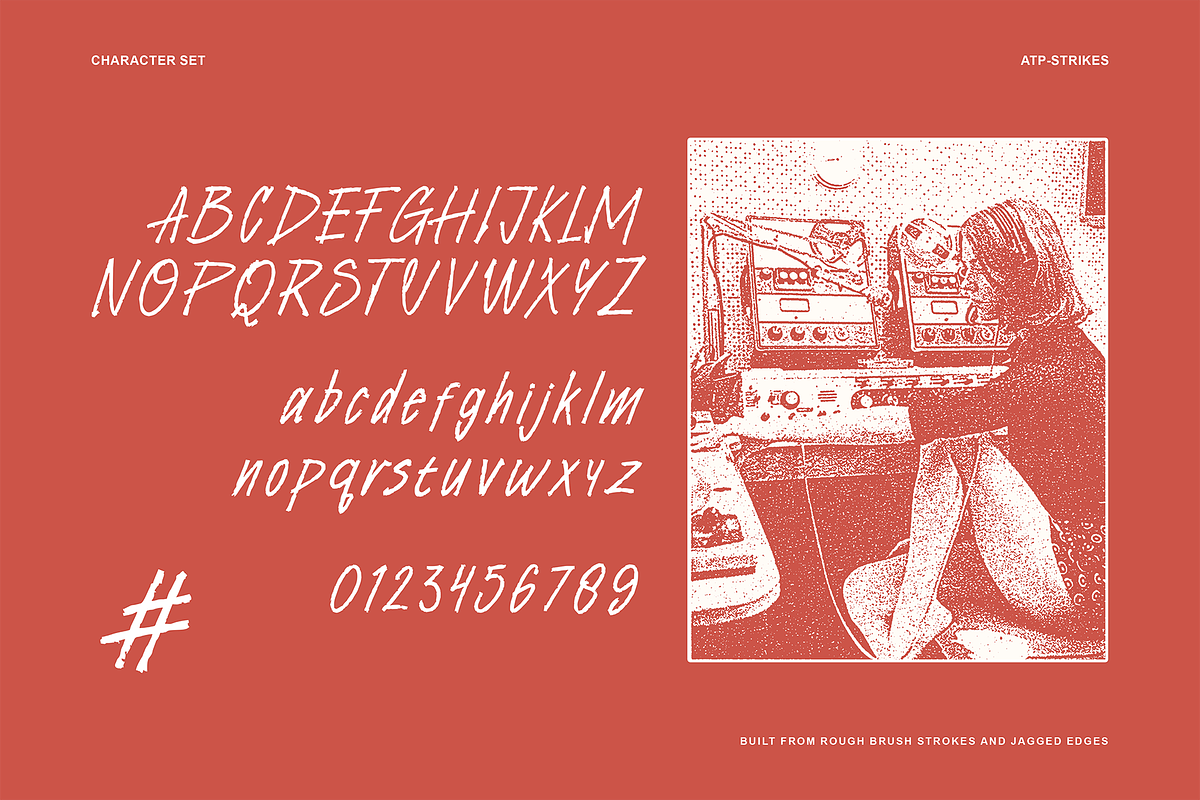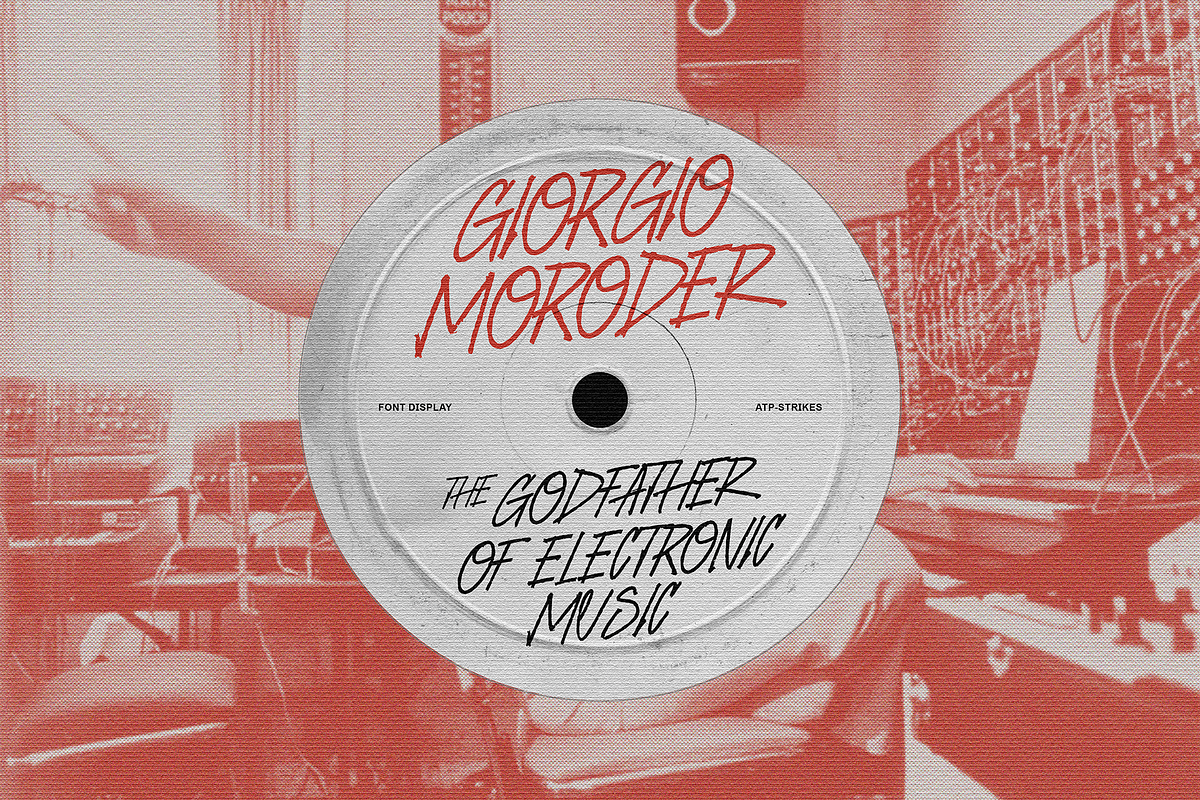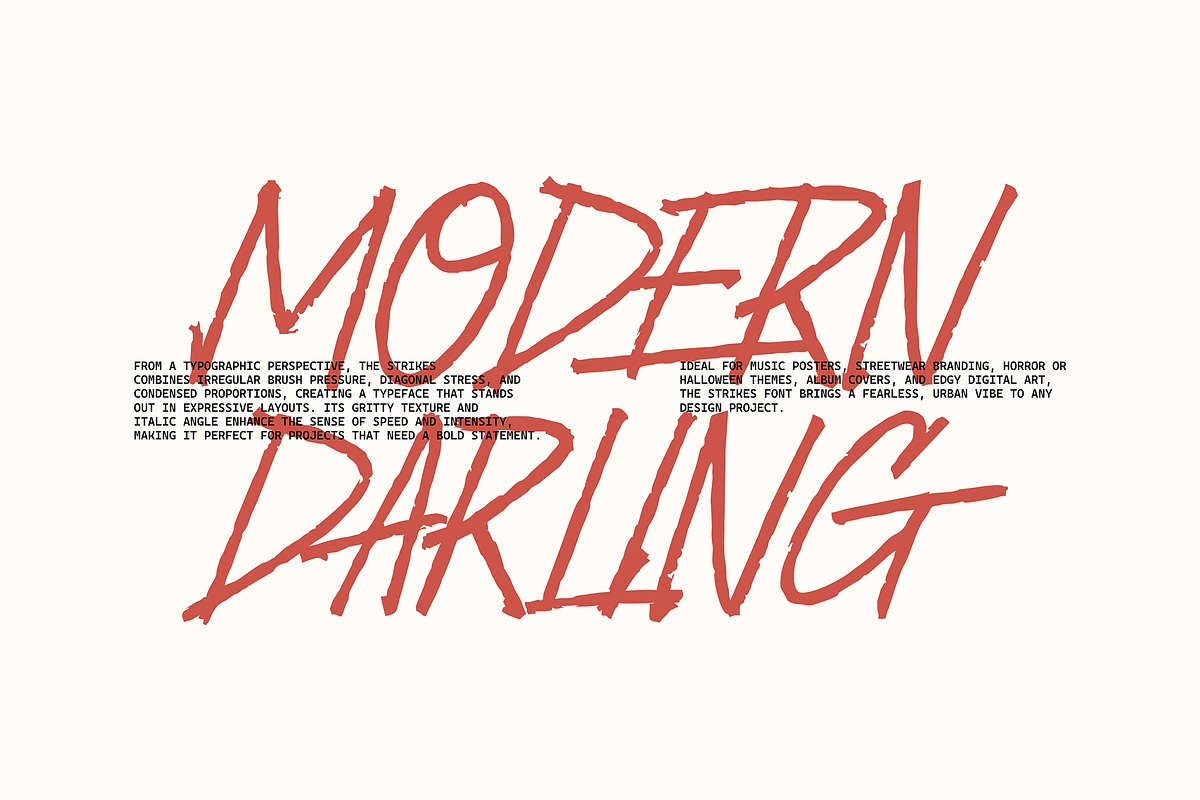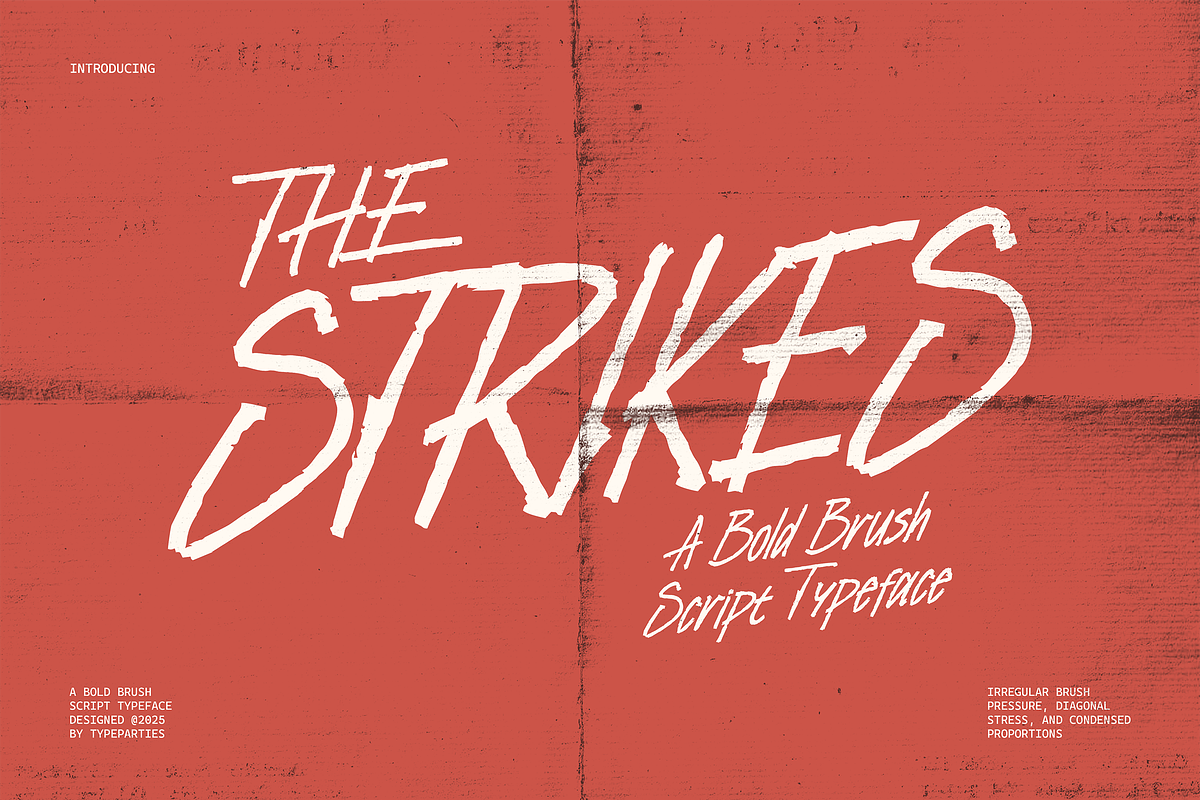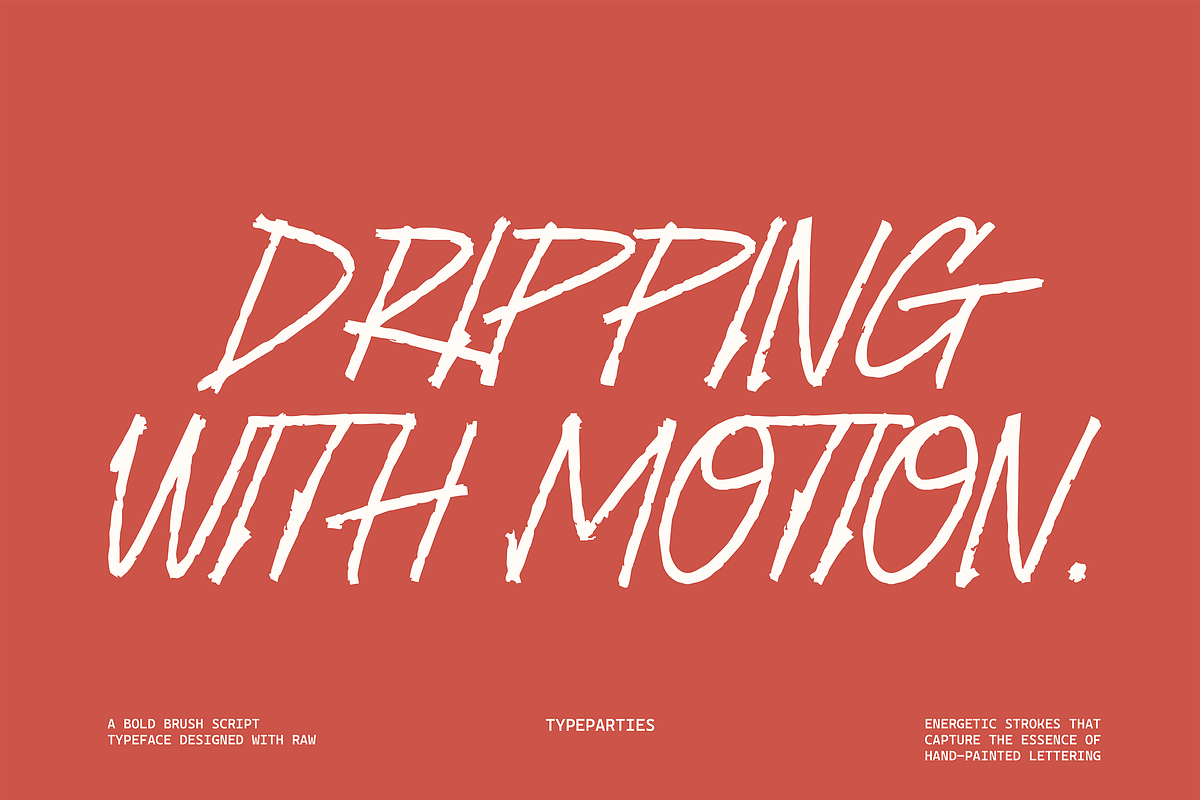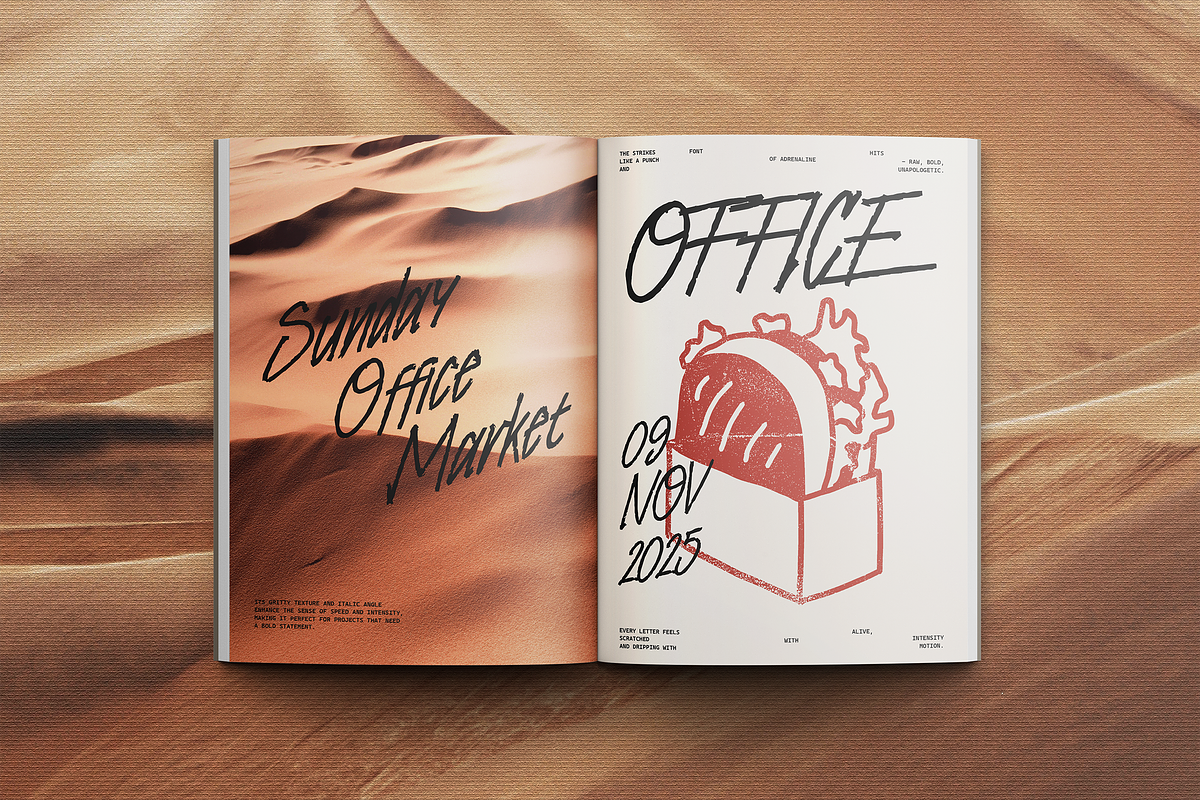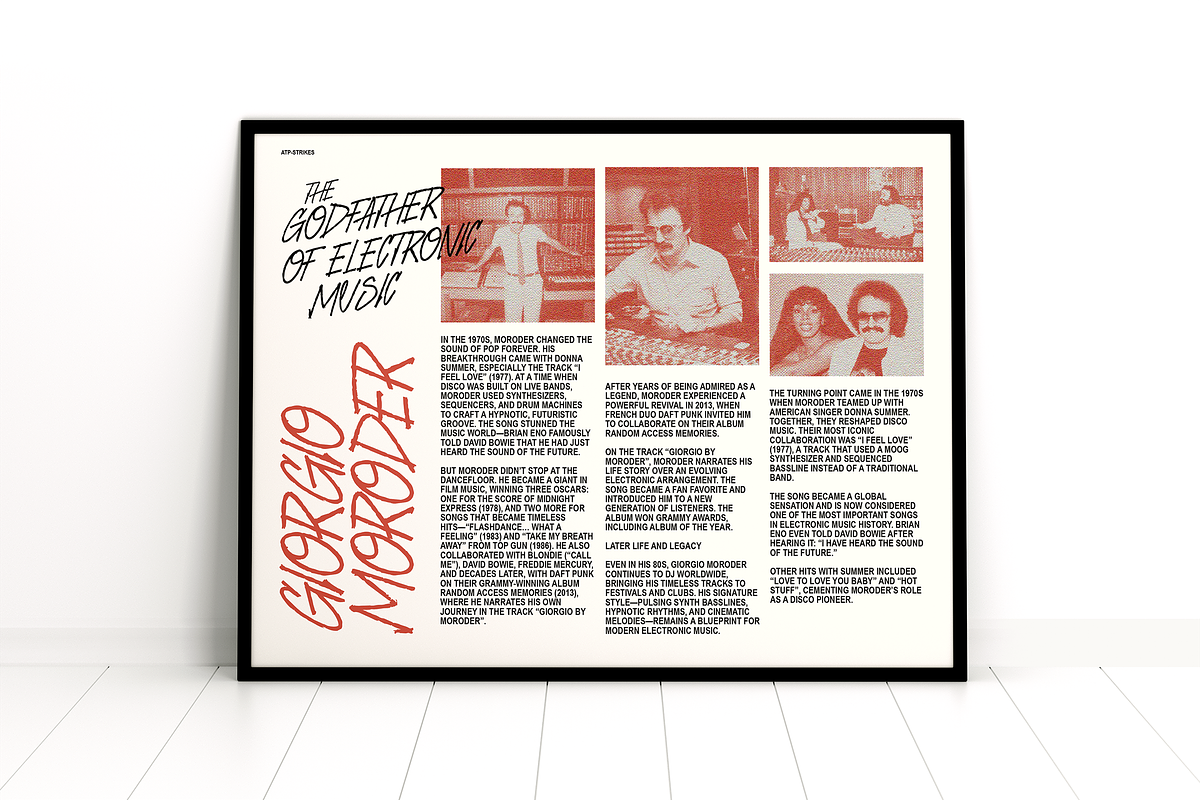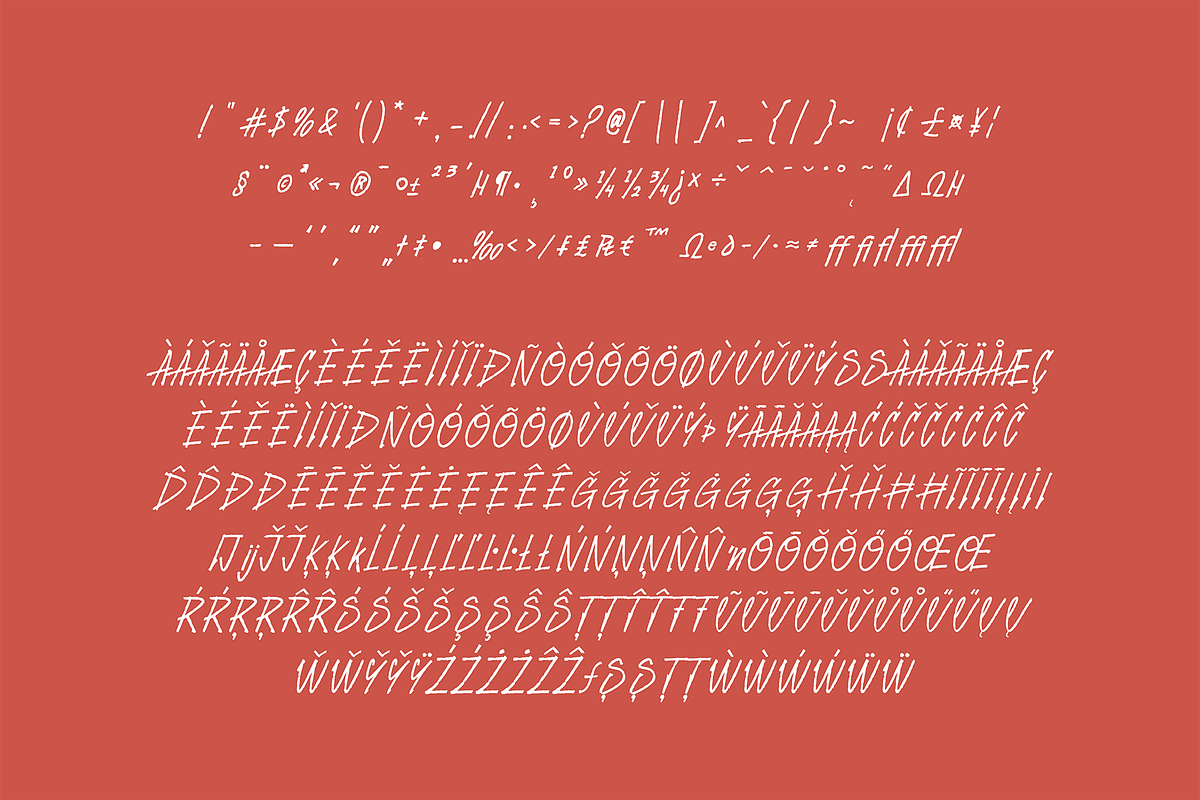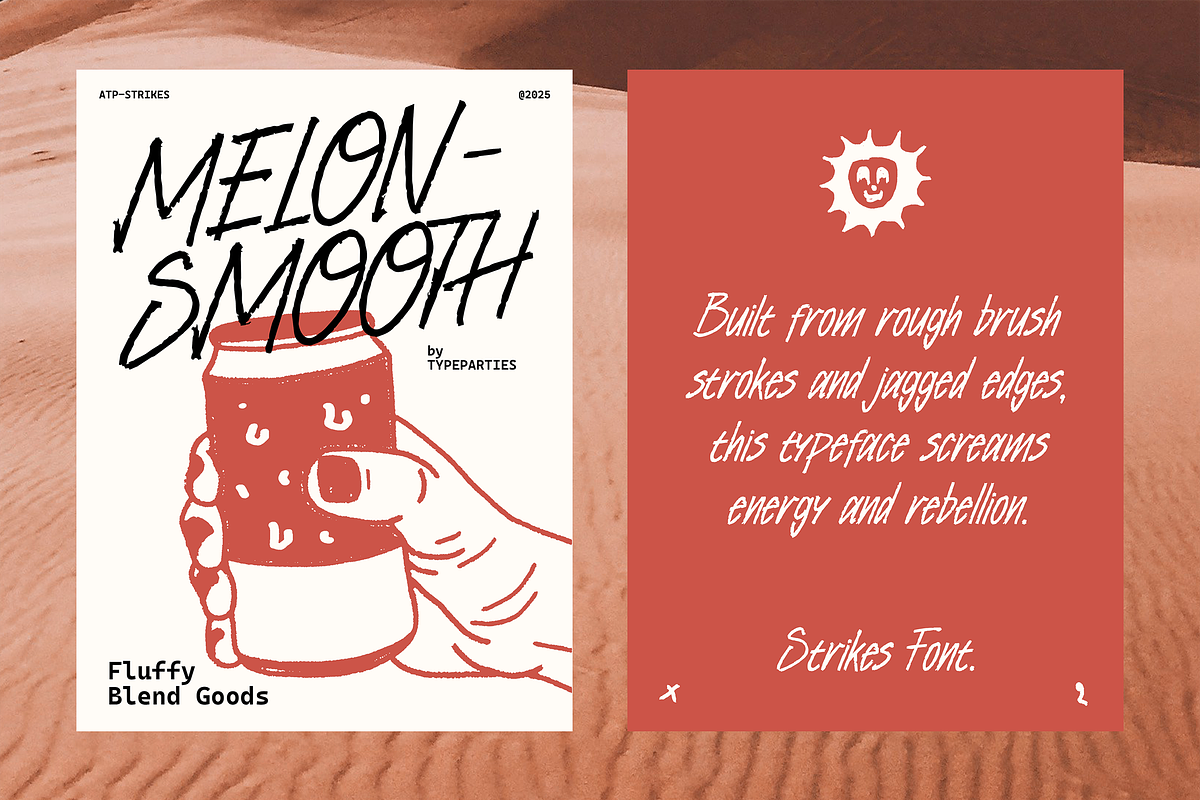
Strikes - Handwritten Brush Font
The Strikes Font hits like a punch of adrenaline — raw, bold, and unapologetic. Built from rough brush strokes and jagged edges, this typeface screams energy and rebellion. It’s not about perfection — it’s about impact. Every letter feels alive, scratched with intensity and dripping with motion.
From a typographic perspective, The Strikes combines irregular brush pressure, diagonal stress, and condensed proportions, creating a typeface that stands out in expressive layouts. Its gritty texture and italic angle enhance the sense of speed and intensity, making it perfect for projects that need a bold statement.